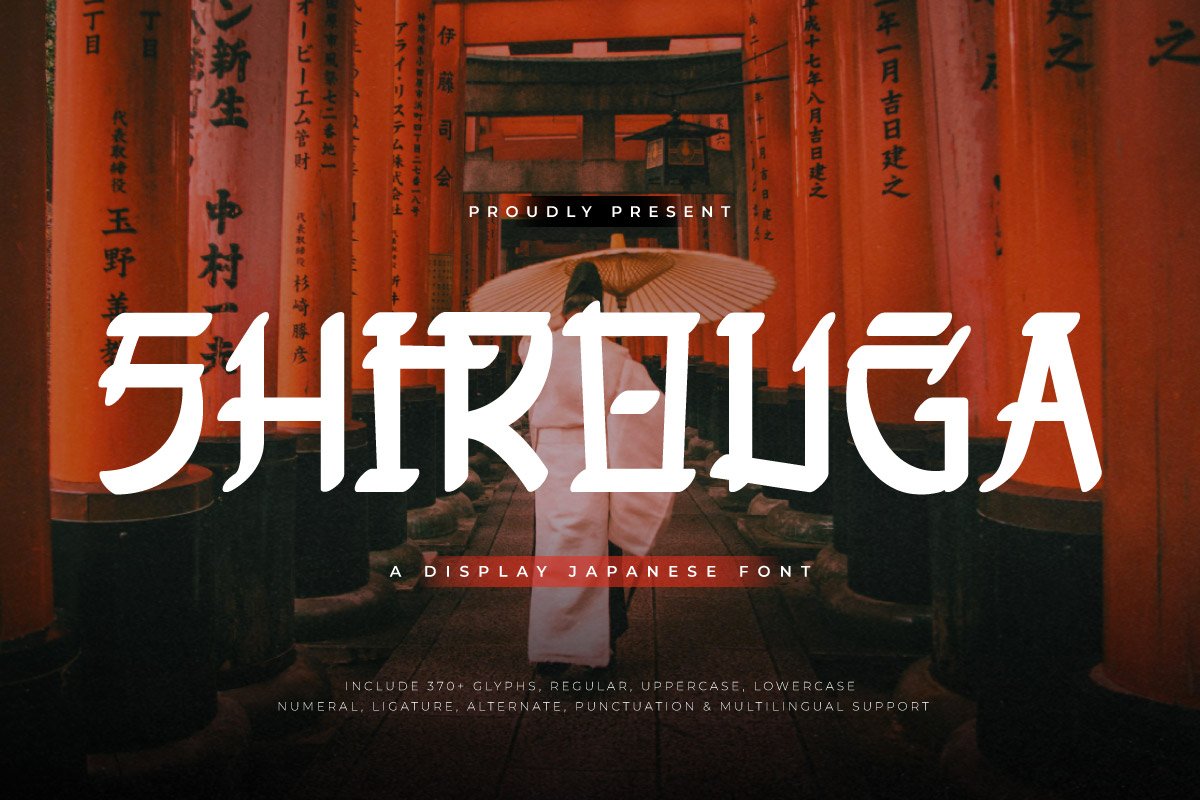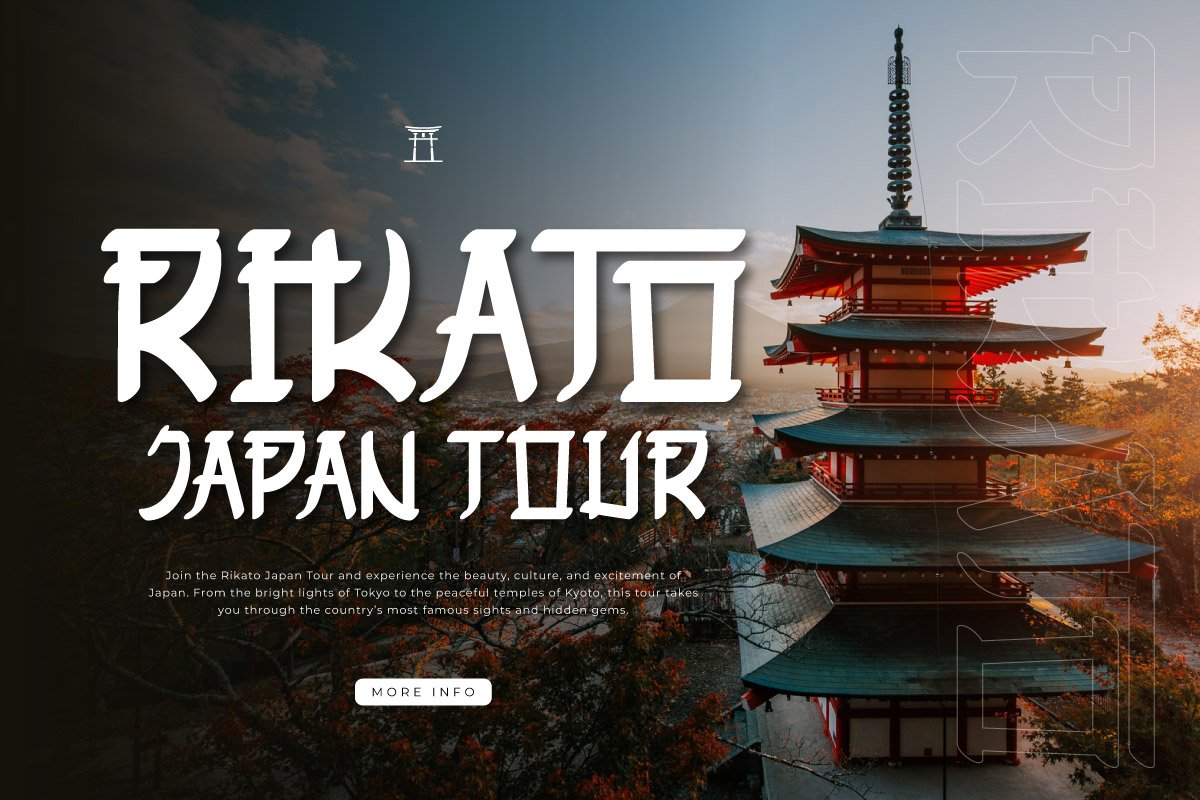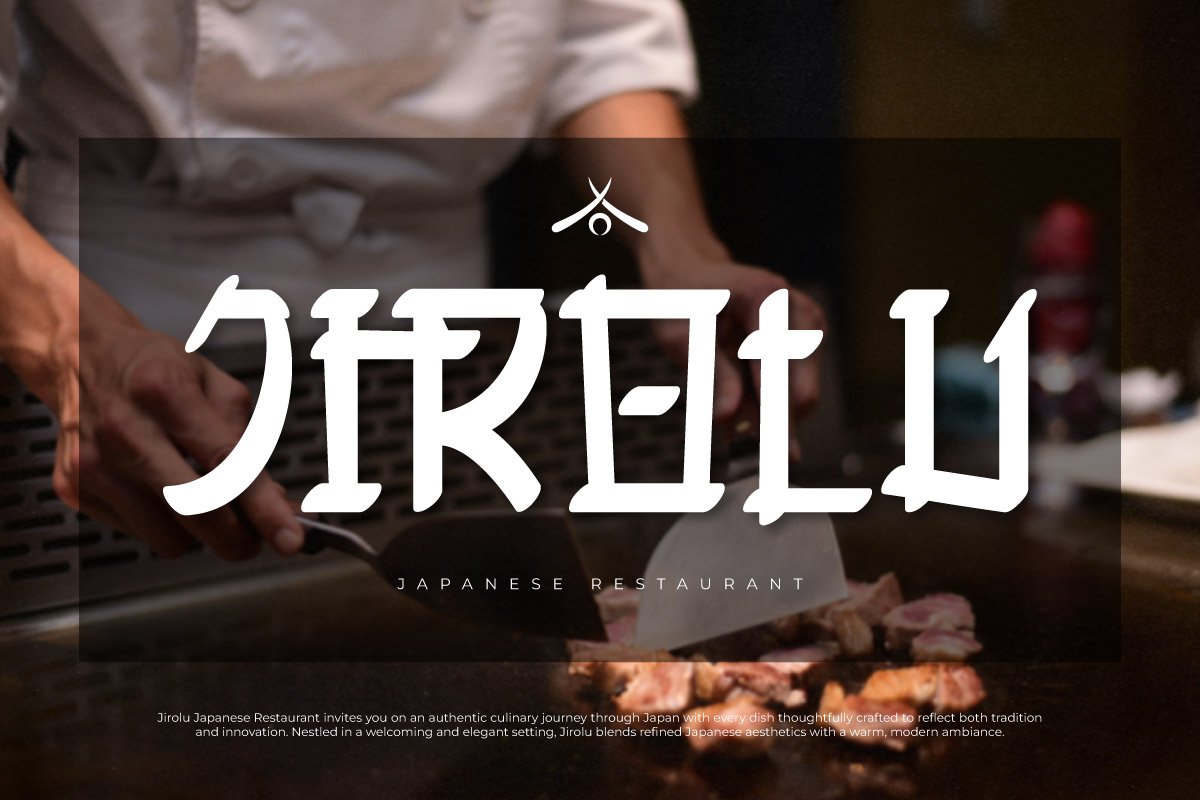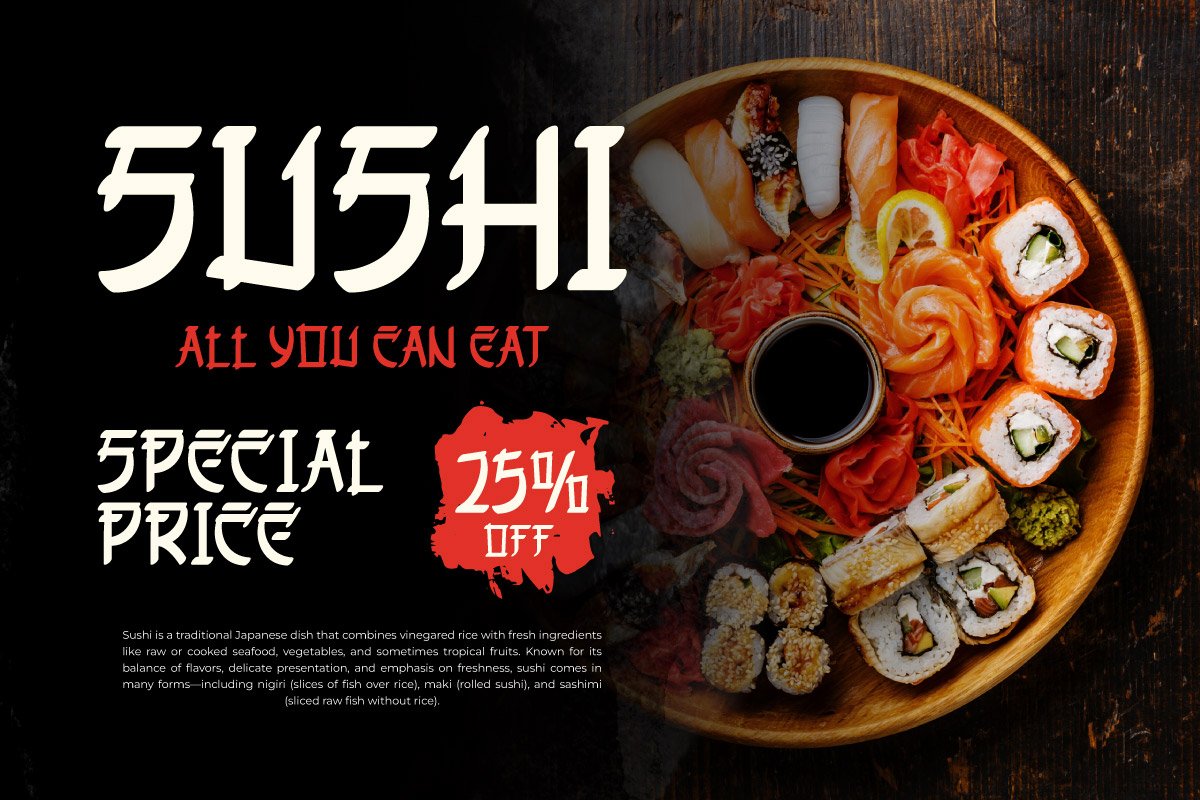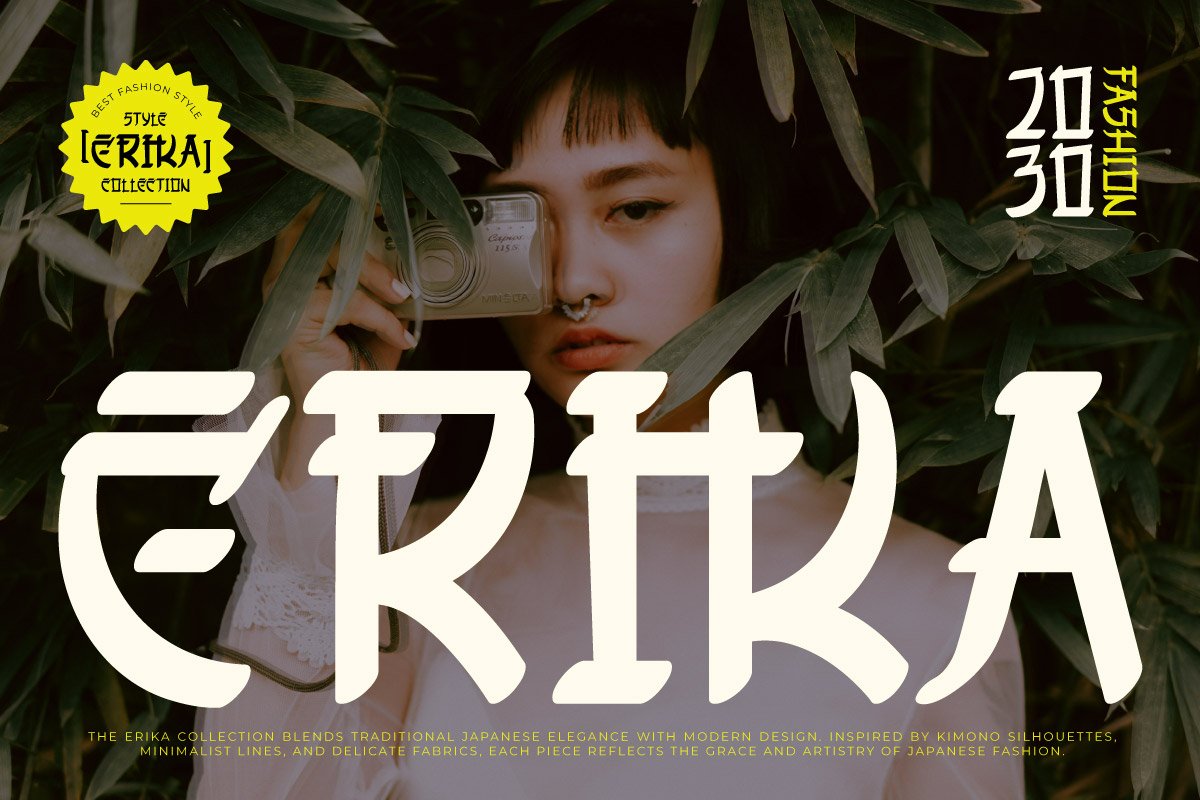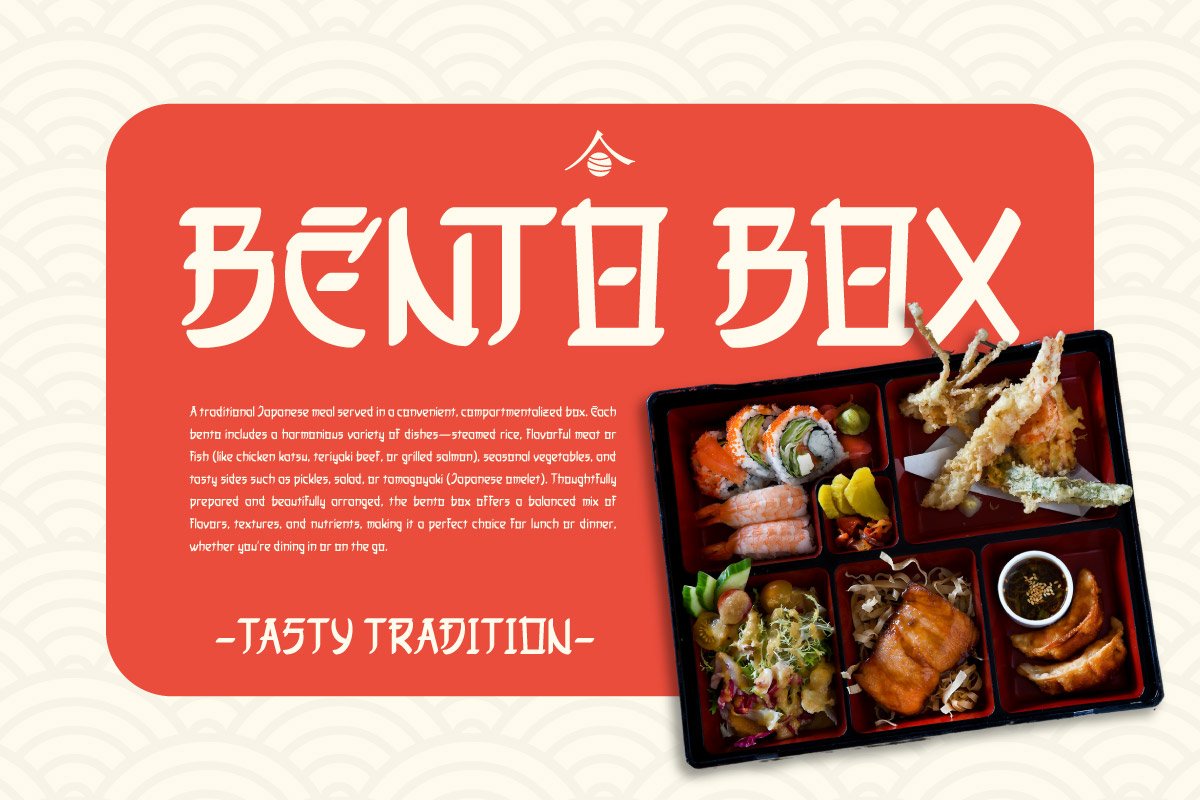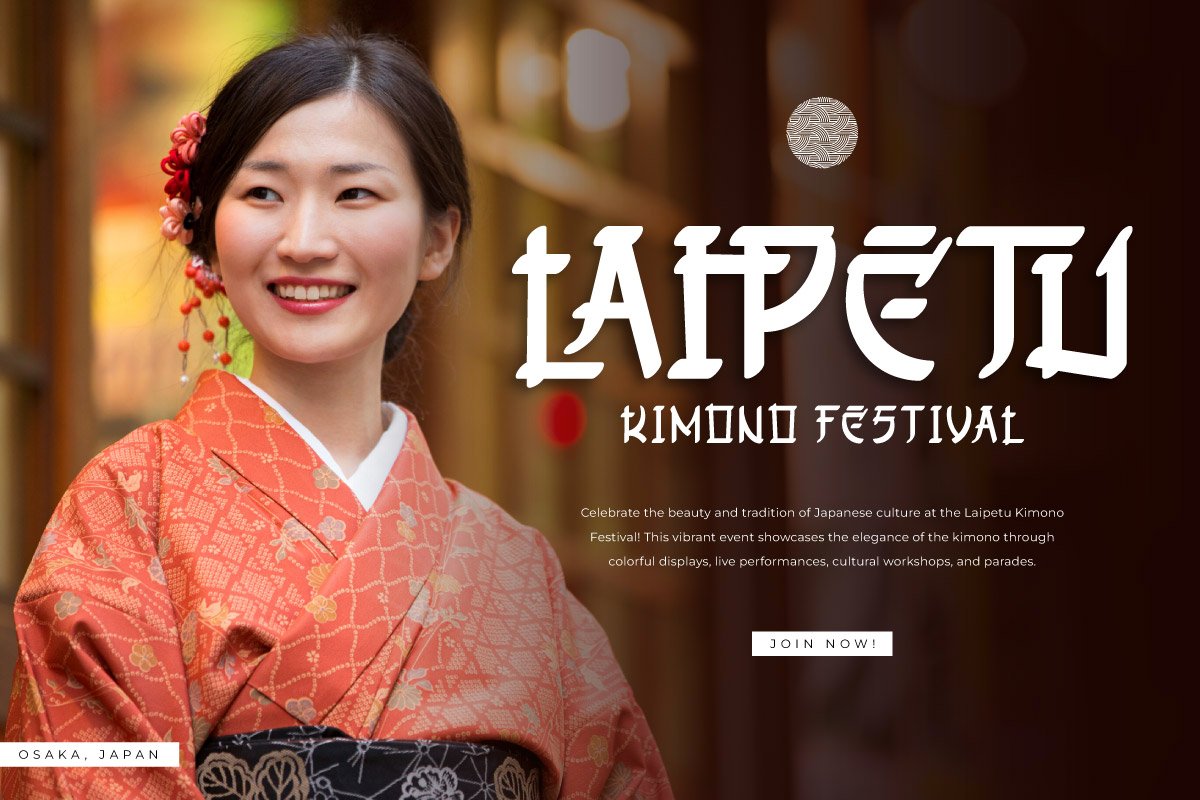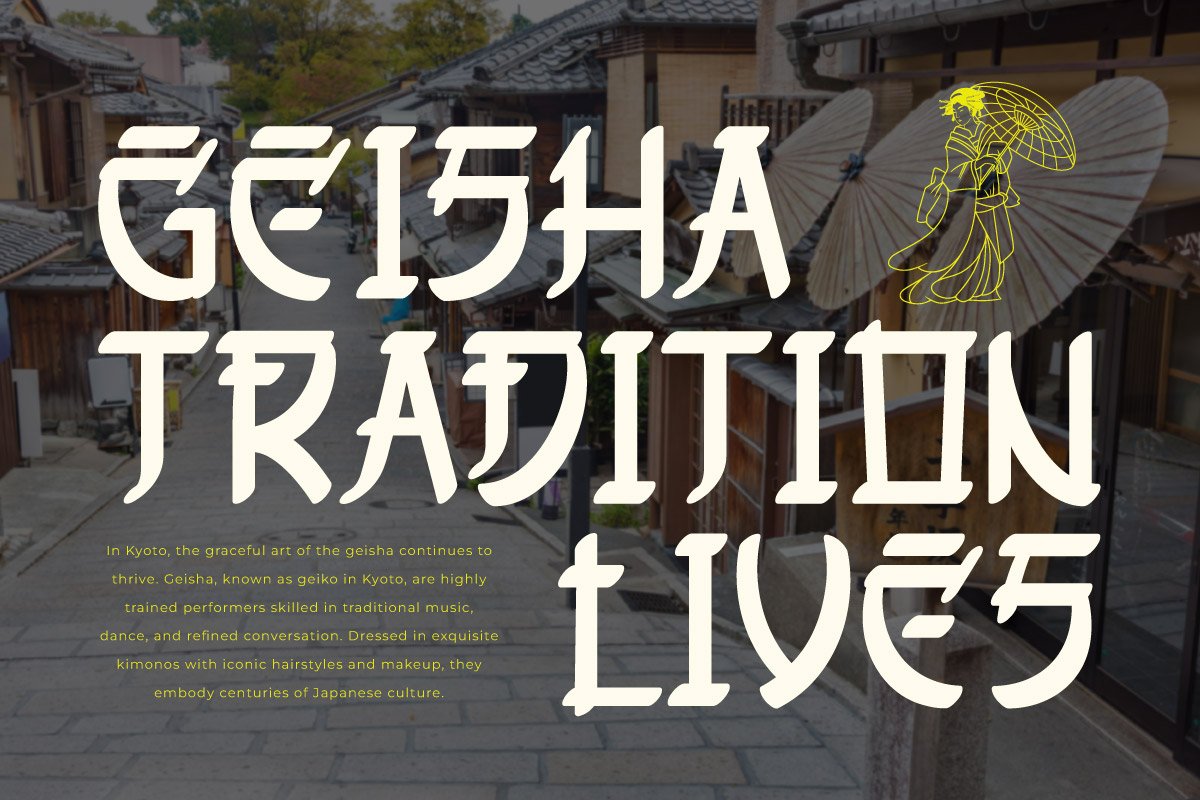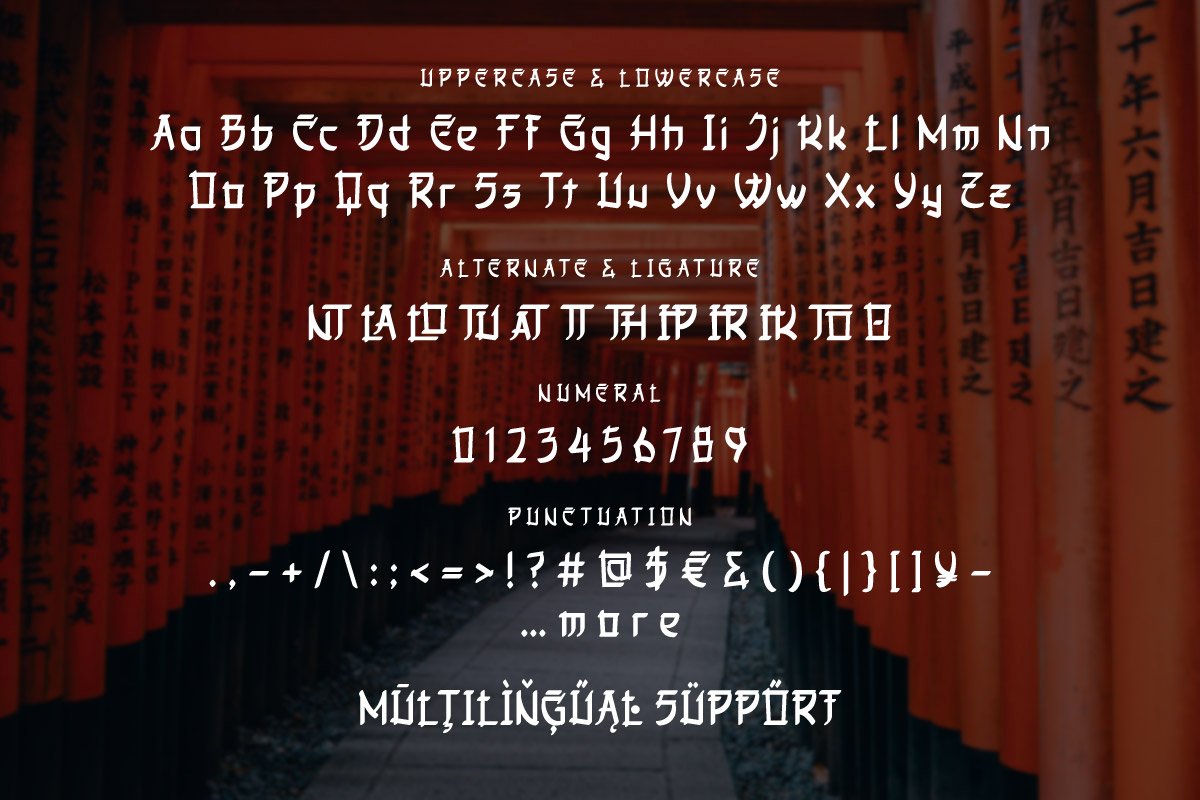
Shirouga – Display Japanese Font
Unleash the essence of Japan in your design with Shirouga, a captivating display font inspired by traditional and modern Japanese aesthetics. Shirouga blends bold strokes with clean, minimal lines that evoke the feel of brush calligraphy, yet retain a modern and versatile display style.
Perfect for branding, poster titles, packaging, restaurant menus, or any design that needs an oriental flair, Shirouga brings authenticity and elegance. Each character is crafted with attention to detail, echoing the harmony of structure and flow found in Japanese art. Whether you’re designing for sushi bars, samurai games, or travel ads, Shirouga instantly transports your audience to the heart of Japan.